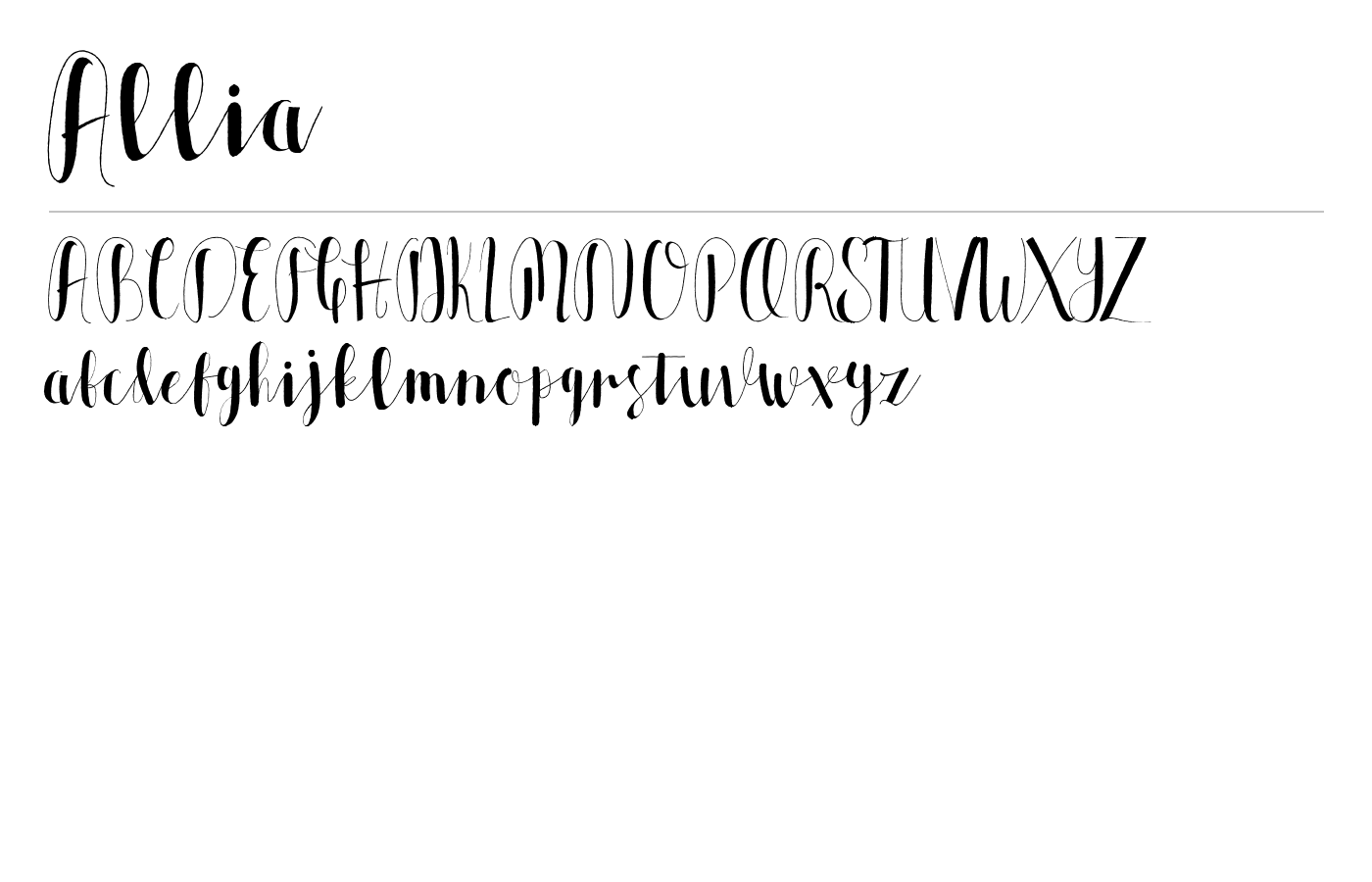
Allia is an elegant script font with a hand-lettered feel, featuring flowing, fluid strokes and high contrast between thick and thin lines. Its tall, narrow letterforms and delicate curves create a stylish, sophisticated look ideal for romance-themed designs, invitations, branding, and anywhere a touch of graceful personal expression is desired. This font shines in headlines and decorative text where its artistic charm can truly stand out.
Allia Font
About Allia Font